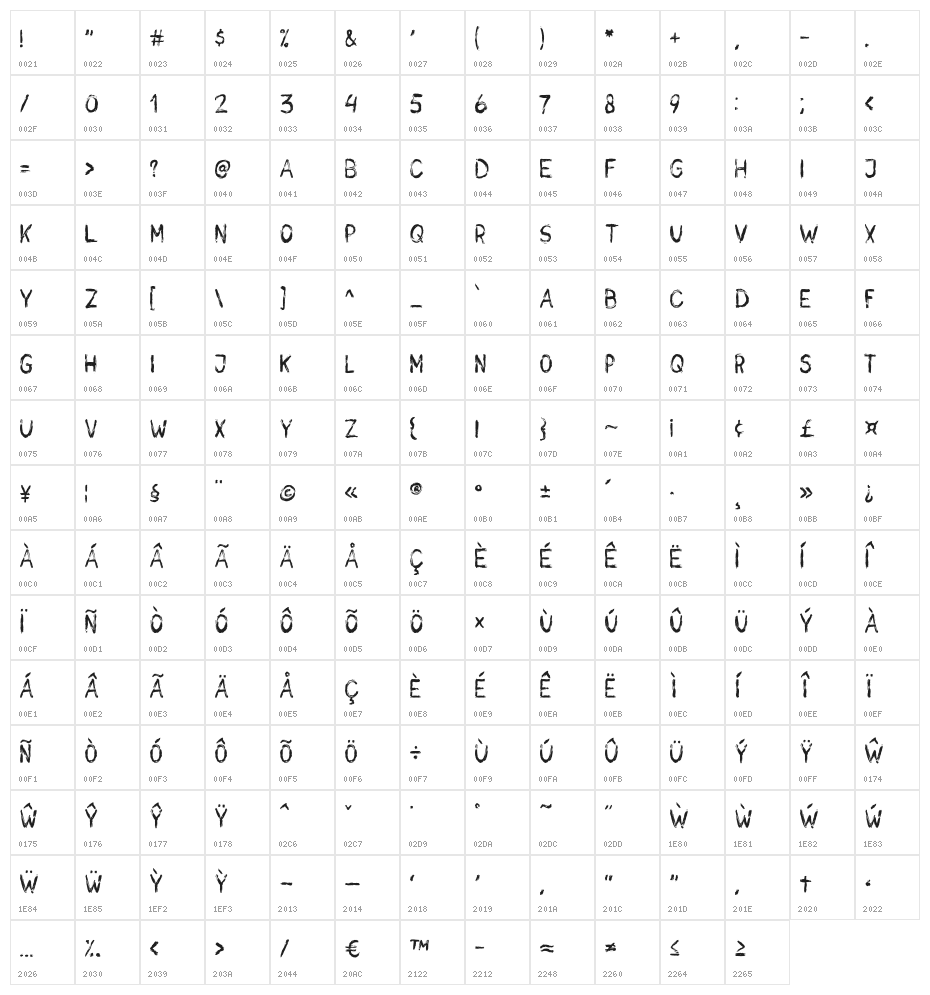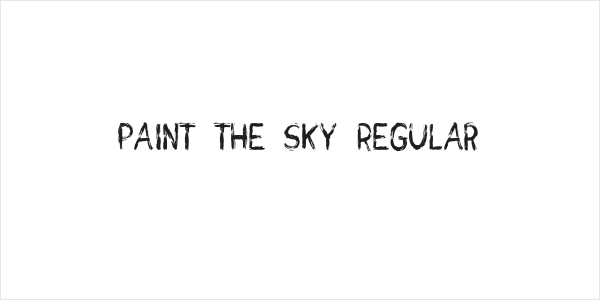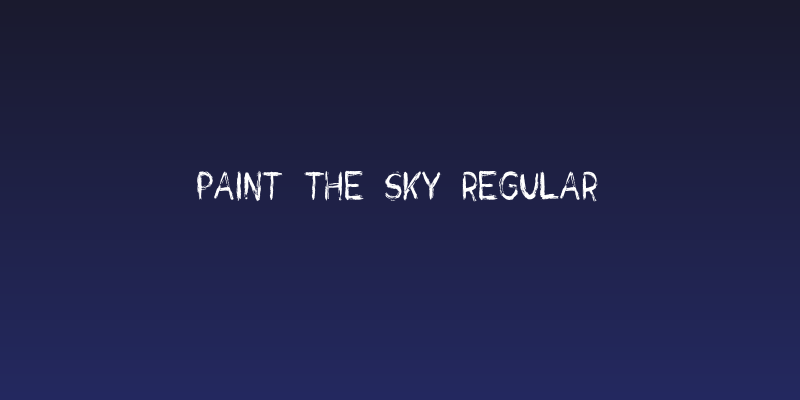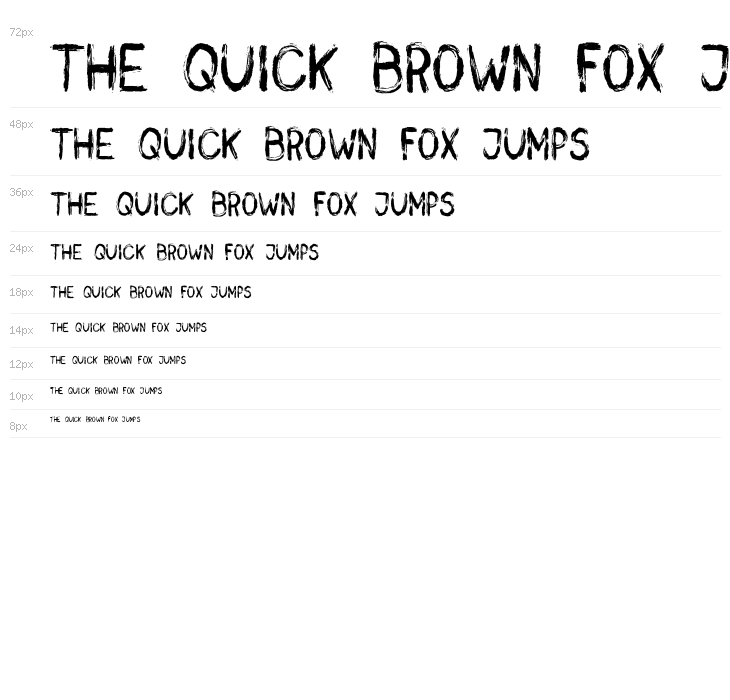
Paint the Sky Regular Font
Paint the Sky Regular Description
This font features a bold, expressive brushstroke style that exudes a sense of creativity and artistic flair. The characters are crafted with uneven, textured strokes, giving them a dynamic and energetic appearance. The uppercase and lowercase letters maintain a consistent style, with each character exhibiting unique variations in stroke width and texture. Numbers and special characters are equally expressive, adding to the font's overall artistic appeal. This font is perfect for projects that require a bold and creative touch, such as posters, art projects, or branding for creative industries.
| Overall Style | Artistic, Expressive |
| Proposed Projects | Ideal for posters, art projects, branding for creative industries, and any design needing an artistic touch. |